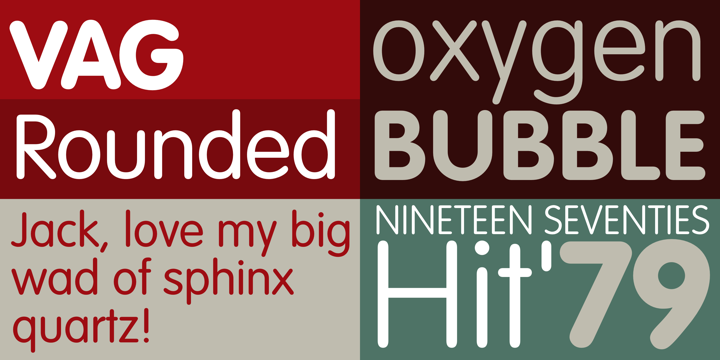
Developed for Volkswagen AG in 1979, VAG Rounded is a variation on nineteenth-century grotesque sans serif designs.
What is unusual about VAG Rounded is that the terminal of every stroke is rounded.